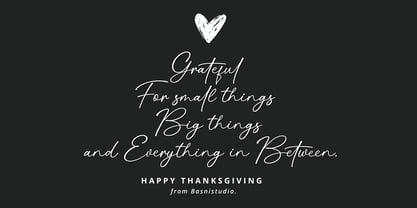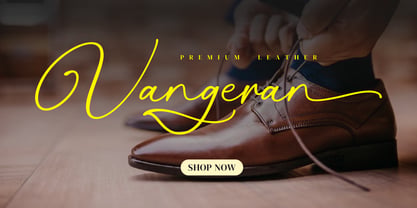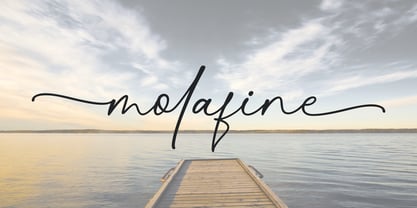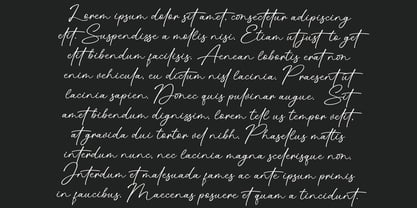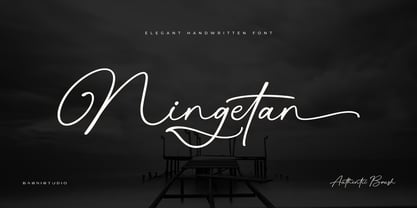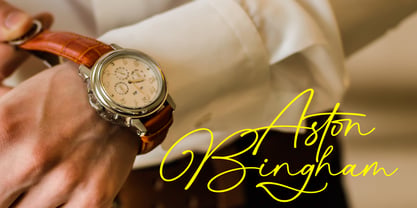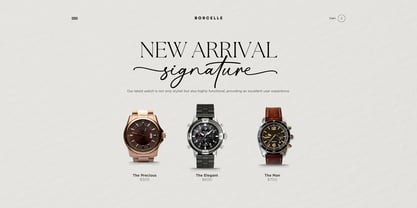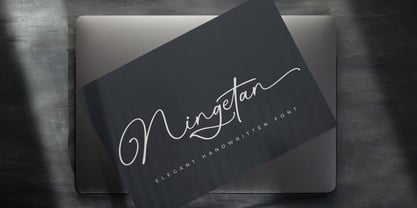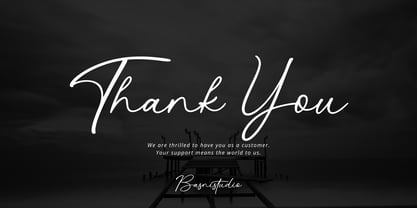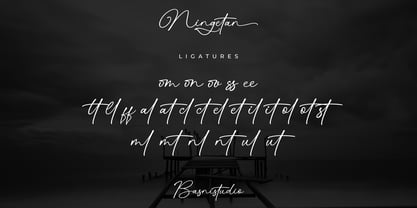
Ningetan
Die Schriftfamilie Ningetan wurde von Bery Arisandi entworfen und von Basnistudio veröffentlicht. Ningetan enthält 1 Stile. Mehr über diese Familie
Perfect Handwriting Touch for Your Designs Introducing Ningetan Elegant Handwritten Font, Design with a luxurious character. Every letter is carefully crafted to deliver a polished and professional look. Elegant & Casual – Perfect for tagline, quotes, greeting cards, and more Authentic Handwritten Feel – Created with authentic Brush for Natural & Casual Easy to Use – Works seamlessly with all major design programs Ideal for branding, product packaging, social media, and magazine design, it’s the perfect choice for brands that want to stand out with subtle elegance. What’s Included: Uppercase & lowercase letters Ligature & Alternates Swashes Numbers & punctuation Multilingual Support ( Support for 90 languages ) If you have any questions please don’t hesitate to contact me. Thank You Very Much